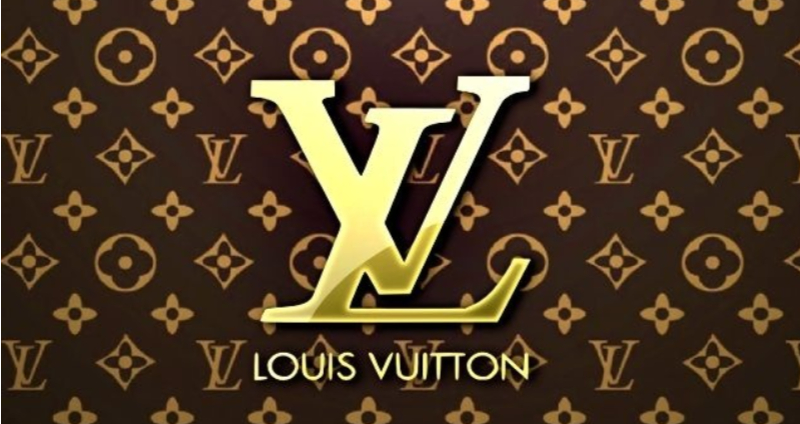
Louis Vuitton New Logo Font
The font used for louis vuitton logo is futura medium, which is a geometric sans serif font designed by paul renner and published by linotype. [lwi vɥitɔ̃ maltje] ), commonly known as louis vuitton, is a french fashion house and luxury goods company founded in 1854 by louis vuitton. When checking whether or not a louis vuitton product might be counterfeited, inspecting the design of the louis vuitton logo on the product is one of the first ways to determine.
It is based on geometric shapes, especially the circle, similar in spirit to the bauhaus design style of the period. This is a clean geometric font family that comes in a very precise textual arrangement. New louis vuitton logo was a bit more than just a louis’s house symbol with crossed “l” and “v”.
The brand’s logo is both the initial name of the brand and the full name of the brand, and you can see it in the fashion world with different fonts you can create a particular style for your logo. There are no limits of where it can be used. The font used for louis vuitton logo is futura medium, which is a geometric sans serif font designed by paul renner and published by linotype.
The font used to write louis vuitton paris and the codes on the leather patches or tags is a very specific font. The project is called ‘ the icon and the iconoclasts: In the new variant, the letters are more closely located to each other.
What's The Font Used For Louis Vuitton Logo?
Futura medium font on fonts.com. Louis vuitton uses futura medium font lettering for their emblem. Louis vuitton font is another name for the futura medium font which has been chosen by this top brand logo.